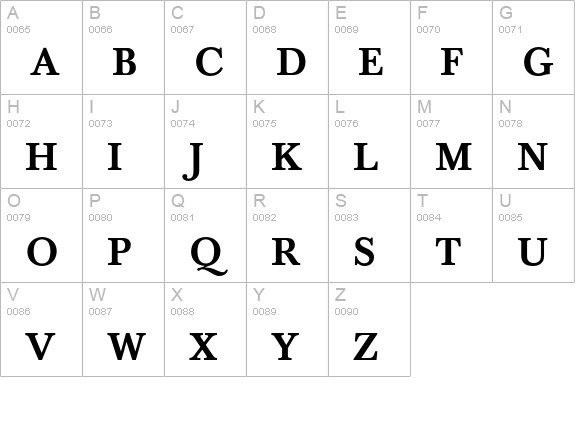
BaskervilleEF-Medium Font Details
BaskervilleEF-Medium is a balanced, medium-weight variant in the BaskervilleEF typeface family \xE2\x80\x94 well suited to sub-headlines, navigation, and balanced editorial work.
BaskervilleEF-Medium is a timeless and elegant font that exudes sophistication and charm. With its classic serifs and refined letterforms, this font is perfect for conveying a sense of tradition and professionalism. The medium weight strikes a perfect balance between boldness and readability, making it ideal for a wide range of design projects. Best of all, BaskervilleEF-Medium is available for free download at FontsMarket.com. Whether you are working on a branding project, editorial design, or any other creative endeavor, this versatile font will add a touch of timeless elegance to your work. Don't miss out on the opportunity to enhance your designs with the beauty of BaskervilleEF-Medium. Download it today and elevate your typography game!